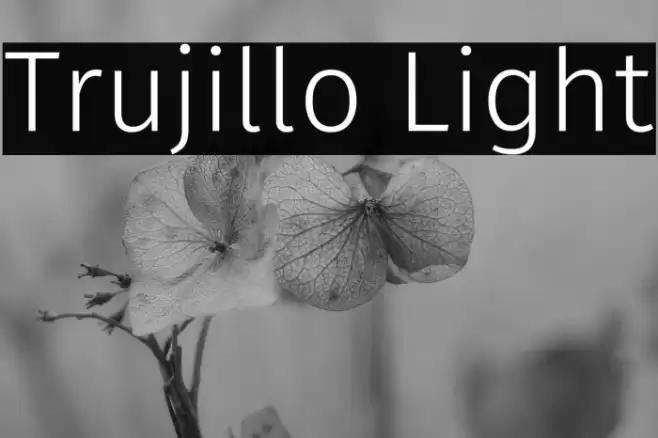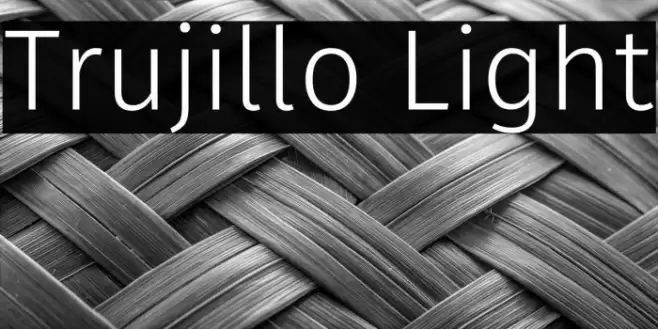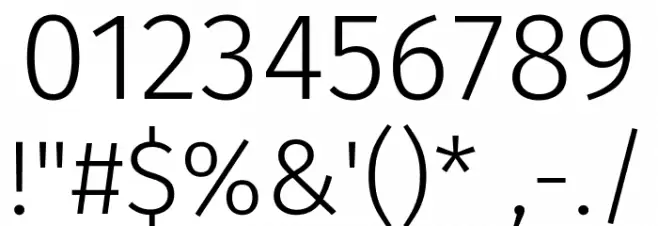
Trujillo Light Font
Trujillo Light Description
This font features a clean and modern sans-serif design with a light weight, making it ideal for a minimalist aesthetic. The characters are well-proportioned with a consistent stroke width, contributing to its sleek and contemporary appearance. The uppercase and lowercase letters are distinct and legible, with a subtle elegance that enhances readability. The numerals are straightforward and align well with the overall style, while the special characters are crafted with precision, maintaining the font's cohesive look. Its simplicity and clarity make it versatile for various design applications.
A modern, light sans-serif font with clean lines and excellent readability from Sans Serif fonts.
- Proposed Projects: Ideal for branding, web design, editorial layouts, and corporate materials.